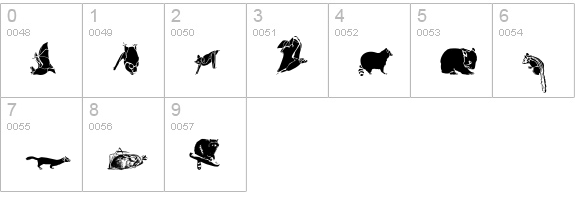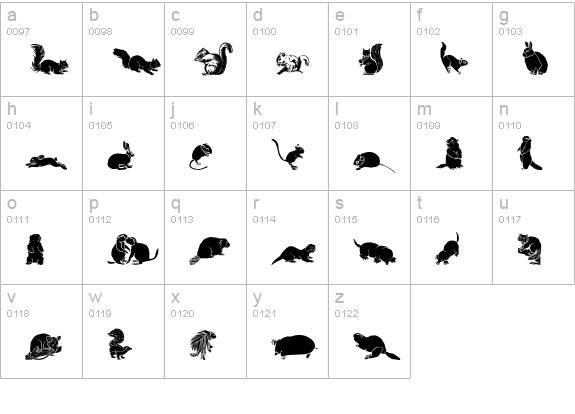
WWFurryFriends Font Details
Introducing WWFurryFriends, a delightful and whimsical font that brings out the playful side of any design project. This font is perfect for adding a touch of furry fun to children's books, greeting cards, posters, and more. Featuring charming and endearing animal-inspired letterforms, WWFurryFriends captures the essence of adorable critters in each character. From the cute and cuddly bear-shaped "B" to the mischievous monkey-shaped "M," this font is sure to bring a smile to anyone's face. Not only does WWFurryFriends add a unique and captivating element to your designs, but it is also freely available to download at FontsMarket.com. This means that you can easily access and use this font in your personal and commercial projects without any hassle. Whether you're designing a children's book cover, creating a whimsical logo, or crafting a playful poster, WWFurryFriends is the perfect choice to add a touch of enchantment. Let your imagination run wild and let this font bring your designs to life with its free-spirited and cheerful vibes. Download WWFurryFriends today and let your creativity soar!